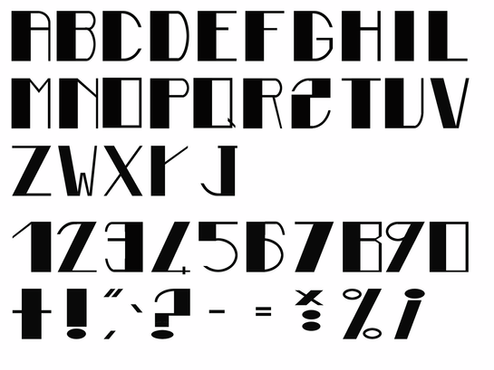
Well, Ive been developing a font for one of my classes and here is what I have......incompleteIt has actually been developed from my "conscept" (misspelt on purpose!) font.
I am not happy with all of the letter forms, but none the less its pretty much done!
Here I display the letterforms....
please give me some feedback so I can finalise it, then if I feel like it.....give it away for download!
It's an interesting font..It looks like something I'd have trouble reading lol...but I like the rounded look of it.